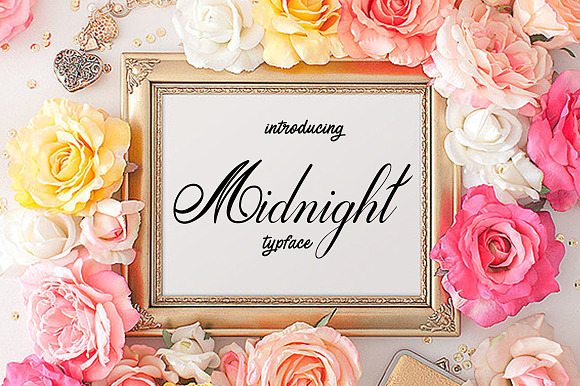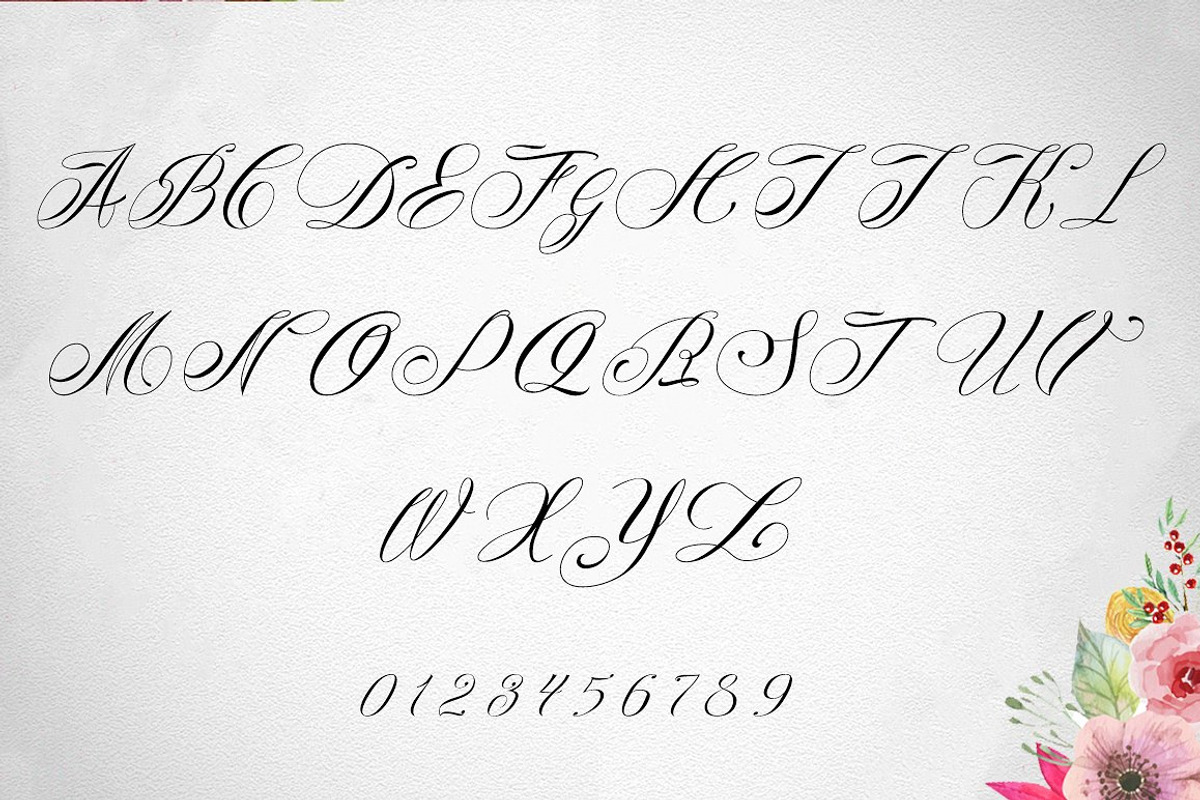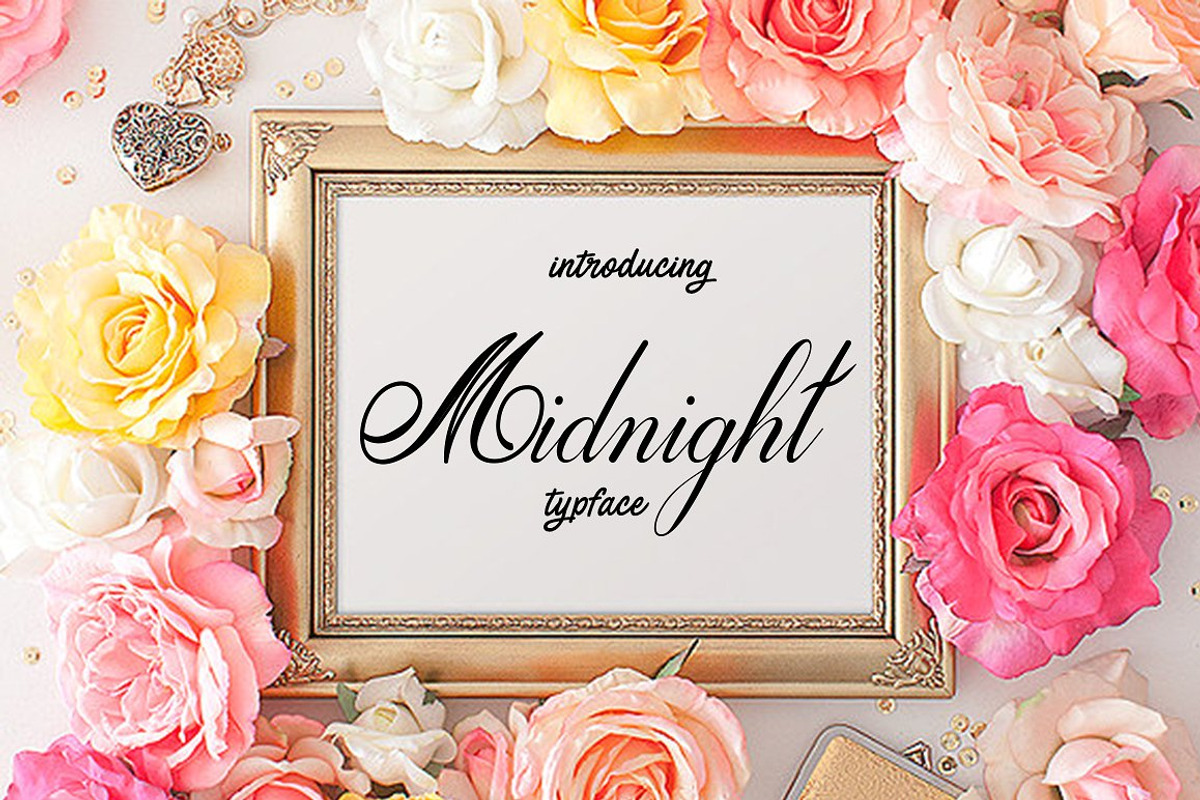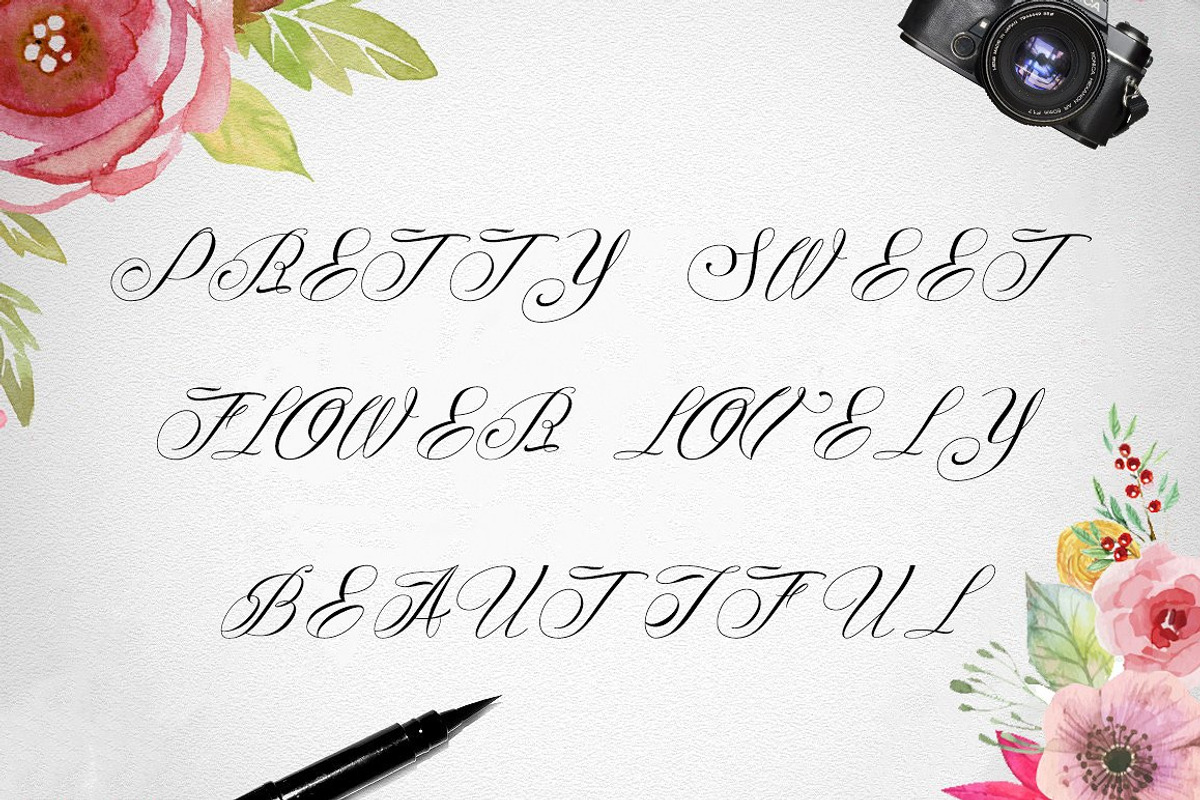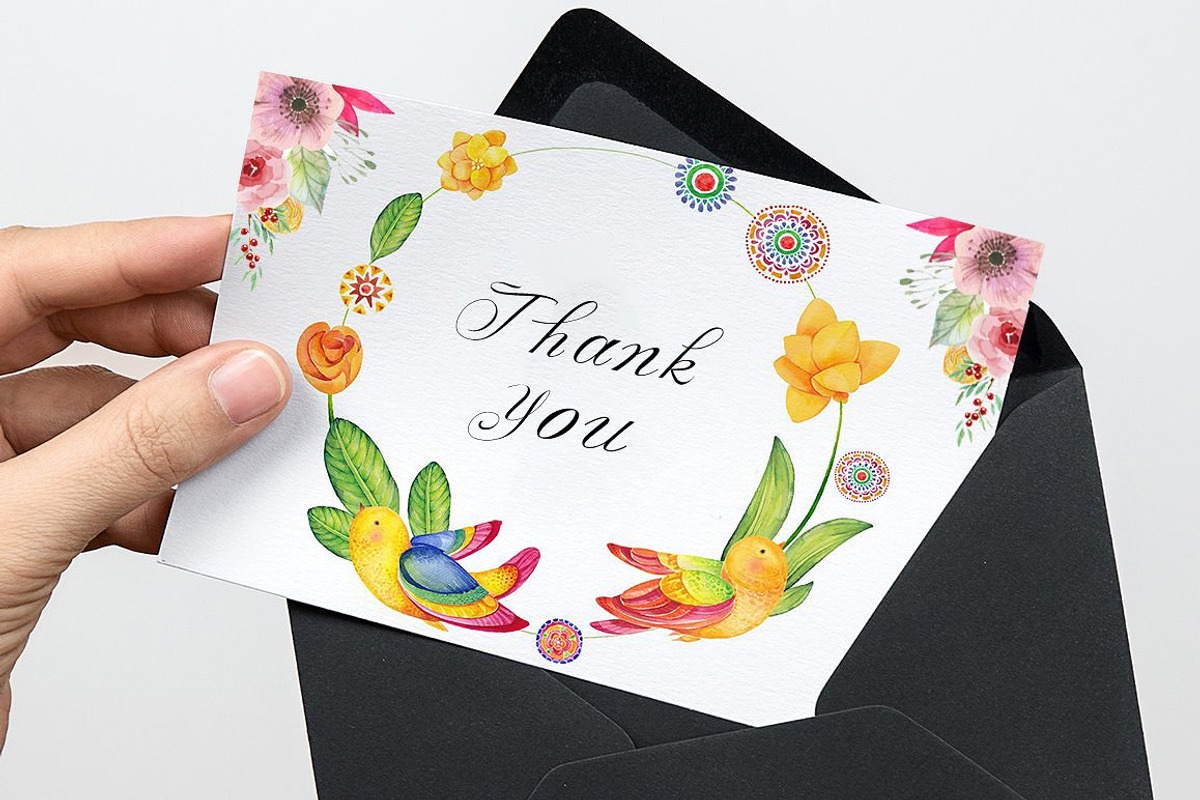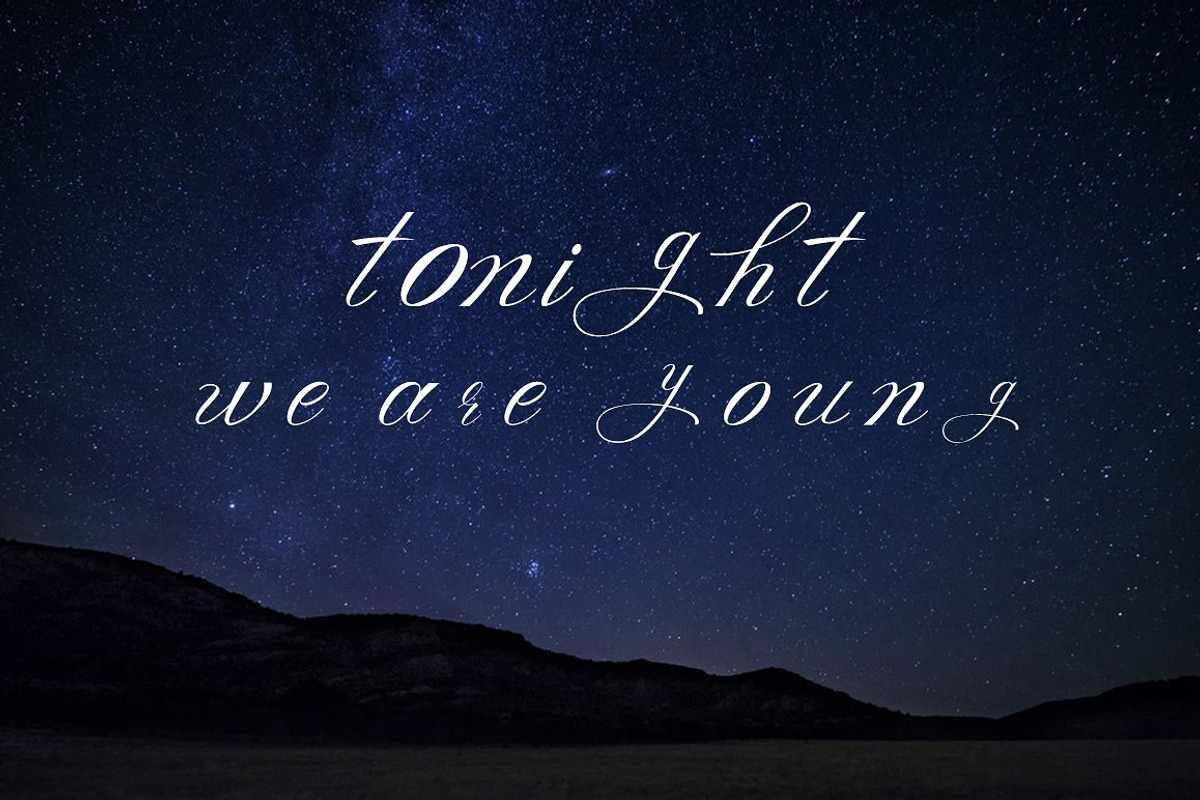
Midnight Typeface
Midnight Typeface by DuoFankaar is a font selected for branding, posters, packaging, typography.
- Midnight Italic
Why Midnight Typeface is worth a look
Midnight Typeface by DuoFankaar fits naturally into Branding, posters, packaging, typography.